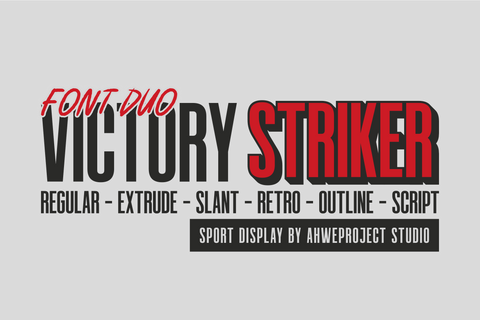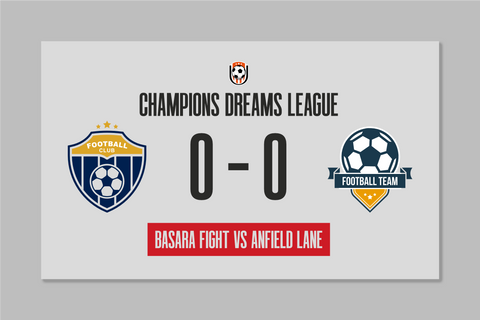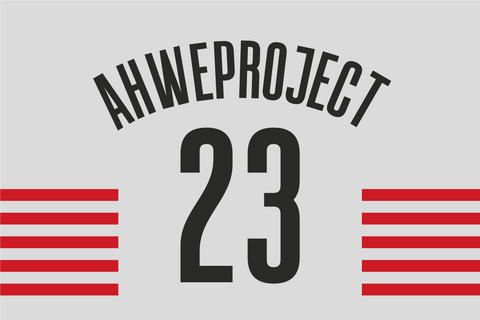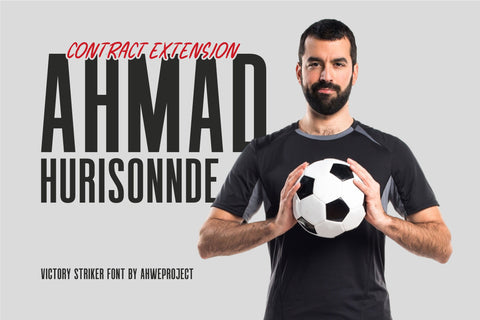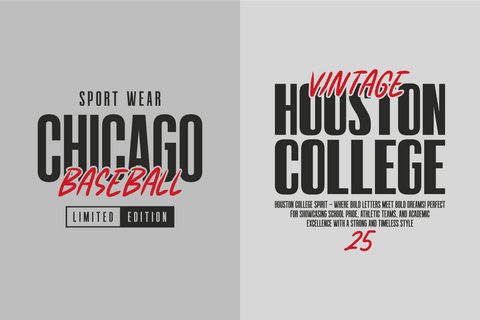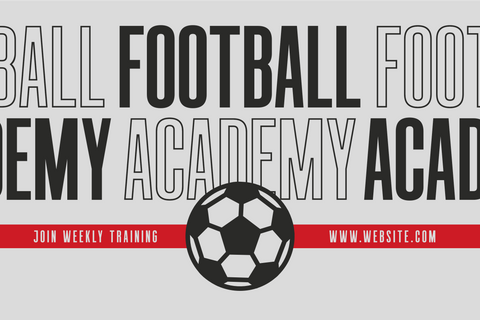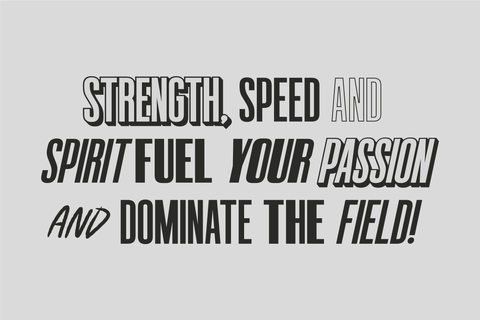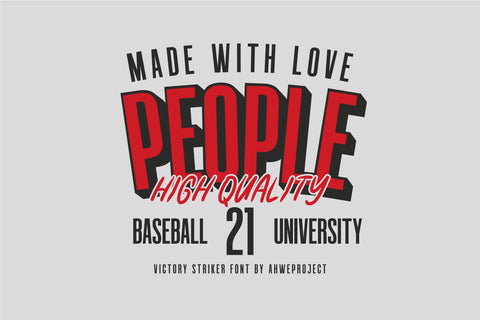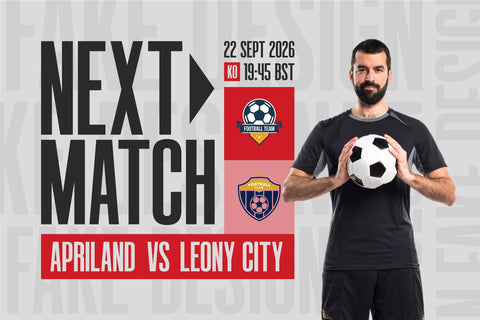
Victory Striker
Introducing Victory Striker, a bold and dynamic sports display font duo designed to bring power and impact to your projects. Combining a strong, tall sans serif with a striking script, this font is perfect for sports branding, athletic team logos, esports, posters, and energetic headlines. With multiple styles including Regular, Extrude, Slant, Retro, Outline, and Script, Victory Striker gives you the flexibility to create eye-catching and competitive designs. Elevate your typography game with this adrenaline-pumping font duo!
- Uppercase & lowercase
- Numbers and punctuation
- Multilingual